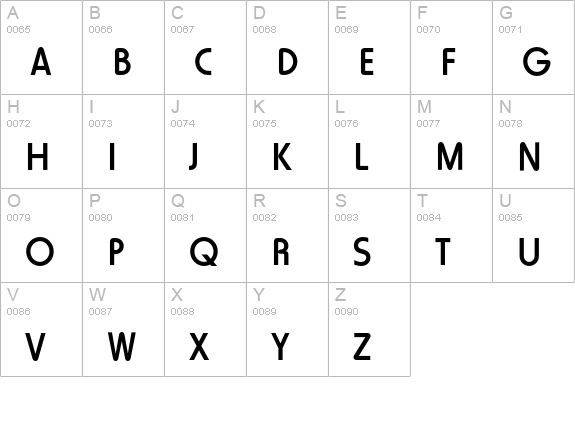
Horatio D Medium Font Details
Horatio D Medium is a balanced, medium-weight variant in the Horatio typeface family \xE2\x80\x94 well suited to sub-headlines, navigation, and balanced editorial work.
Horatio D Medium font is a modern and elegant typeface that exudes sophistication and charm. With its clean lines and balanced proportions, this versatile font is perfect for a wide range of design projects, from branding to editorial design. The medium weight of Horatio D adds a touch of classic elegance, making it ideal for conveying a sense of professionalism and refinement. What sets Horatio D Medium font apart is not only its timeless design but also the fact that it is available for free download at FontsMarket.com. This means that designers and creatives can access this high-quality font without any cost, making it a valuable addition to any font library. Whether you're working on a print project, a digital design, or anything in between, Horatio D Medium font offers the versatility and sophistication to elevate your work to the next level.